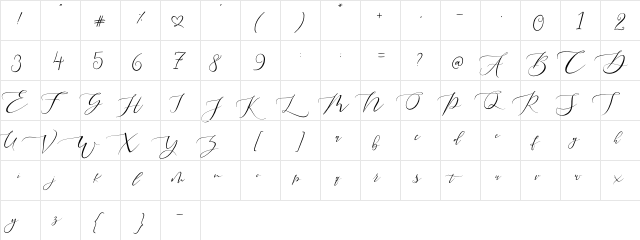
Pretty Women Script Regular
| Designer | Lettersiro 2018 |
Design Context for Pretty Women Script Typeface
Pretty Women Script brings a calligraphic fluidity to the page — its connecting strokes and expressive curves give it an unmistakably human quality.
Font Pairing: Combine Pretty Women Script with a simple geometric sans for maximum contrast — the tension between flowing curves and clean structure is a classic typographic pairing.
Pro Tip: Use Pretty Women Script for short runs of text — names, titles, or taglines. Extended body copy in script faces tires the eye quickly.